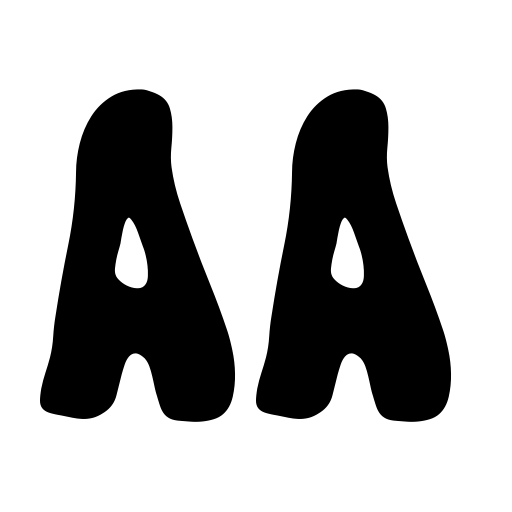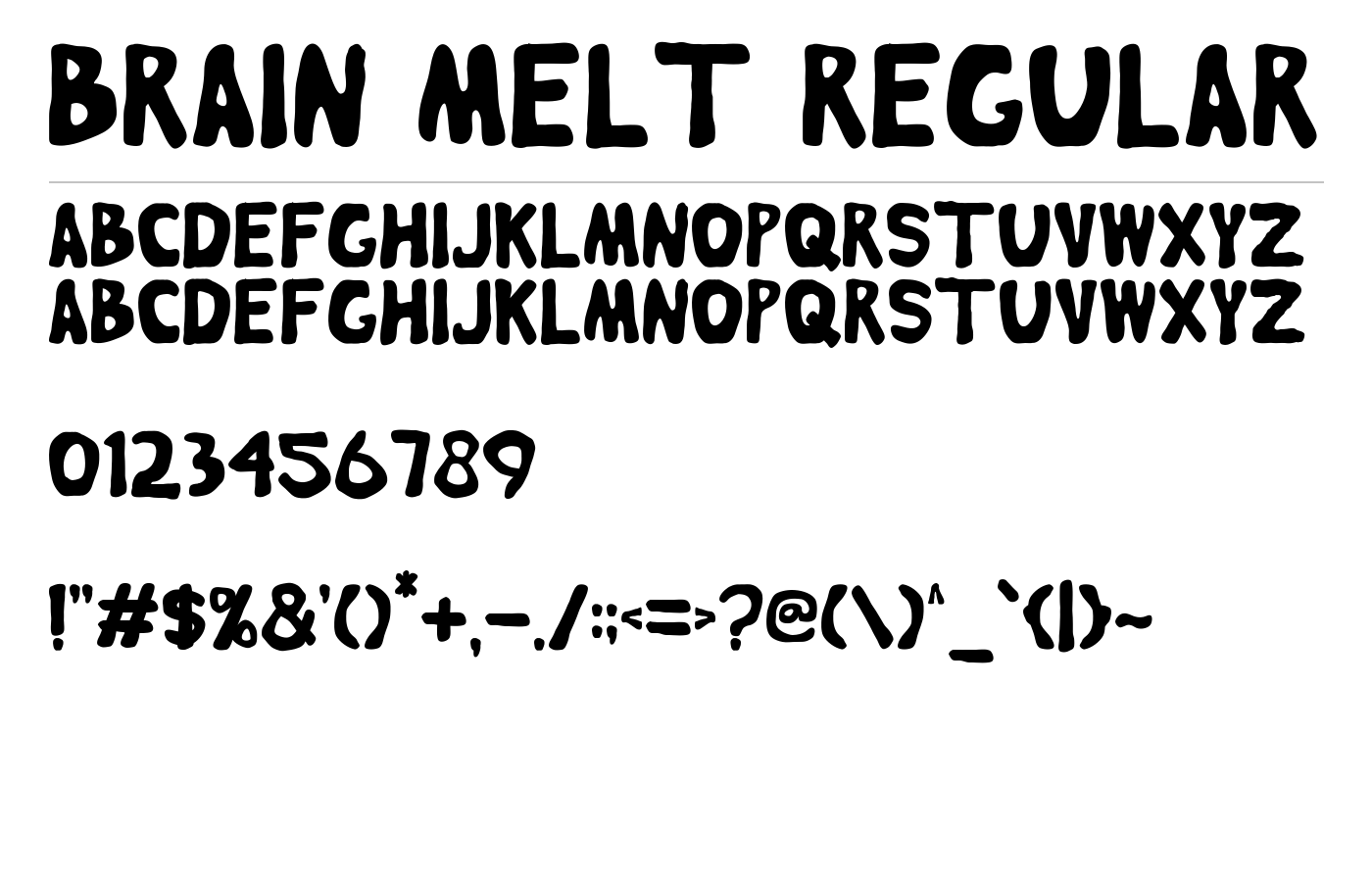
Brain Melt Regular is a playful and bold sans serif font characterized by its chunky, irregular shapes and slightly uneven strokes that give it a hand-drawn, casual feel. With its high x-height and wide letterforms, it creates an approachable and fun personality, making it ideal for creative projects, informal branding, and youthful designs where a quirky, energetic vibe is desired. This font works best in headlines, posters, and playful packaging where its distinctiveness can stand out and capture attention.
Brain Melt regular Font
About Brain Melt regular Font